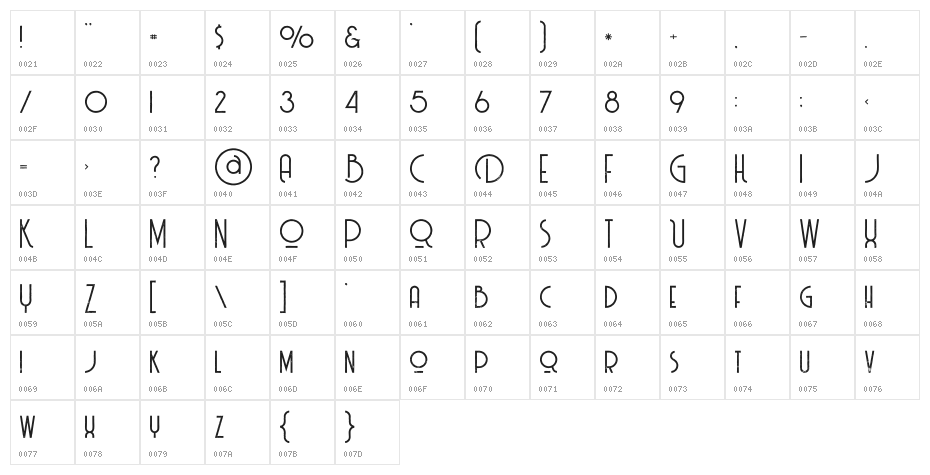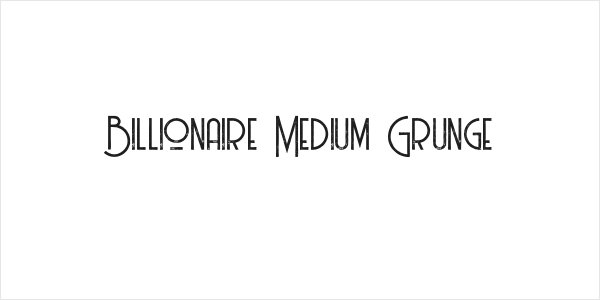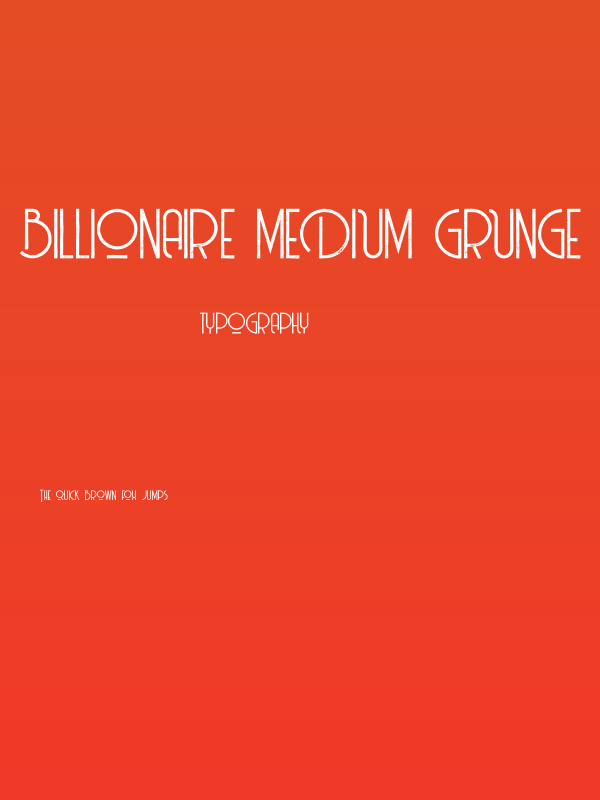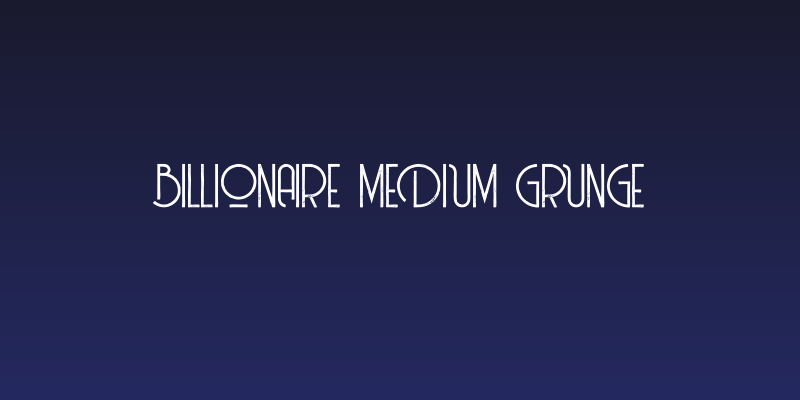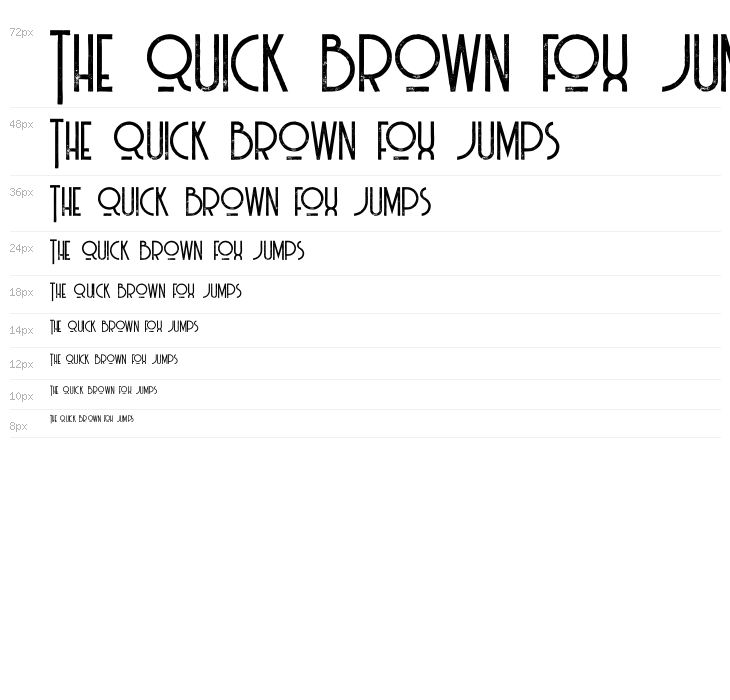
Billionaire Medium Grunge Font
Billionaire Medium Grunge Description
This font features a distinctive grunge style with a medium weight, characterized by its textured and slightly distressed appearance. The uppercase letters are bold and geometric, with a modern flair that is both eye-catching and edgy. The lowercase letters maintain the same geometric structure, offering a cohesive look throughout. Numbers and special characters are designed to match the overall aesthetic, providing a consistent and unified appearance. The font's unique texture gives it a vintage, worn feel, making it ideal for projects that require a touch of ruggedness or an urban edge.
| Overall Style | Grunge, Vintage, Urban |
| Proposed Projects | Ideal for album covers, posters, branding for edgy or alternative products, and any design needing a vintage or urban touch. |